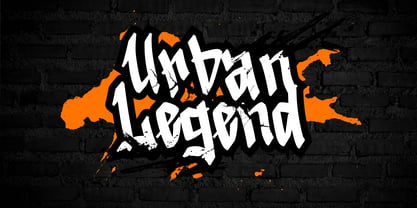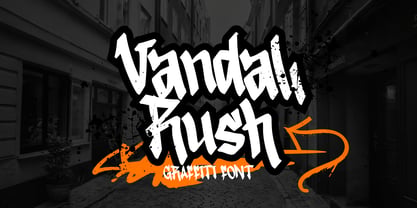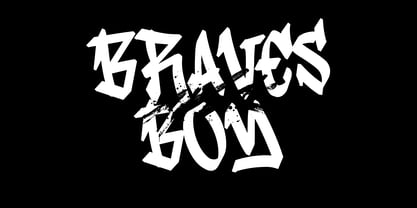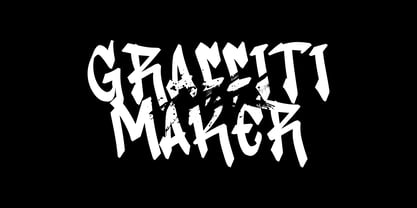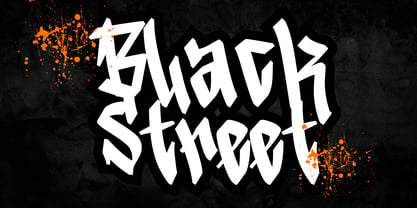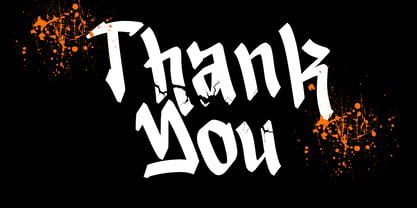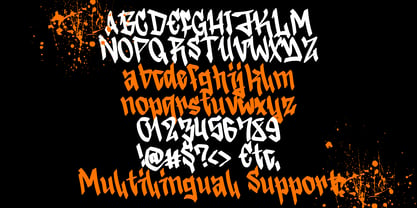
Vandal Rush
La familia tipográfica Vandal Rush fue diseñada por Ahmad Afandi y publicada por Letterafandi Studio. Vandal Rush contiene 2 estilos y opciones de paquete familiar. Más información sobre esta familia
Vandal Rush is a bold graffiti-style display font inspired by urban street culture and expressive hand-painted lettering. This font features strong, irregular strokes with dynamic angles and textured splatter details that convey energy, rebellion, and raw creativity. Its high contrast and compact letterforms make it highly impactful and visually dominant, even at large sizes. Designed to capture the essence of street art and underground typography, Vandal Rush is ideal for posters, branding, album covers, streetwear designs, event promotions, social media graphics, and headline-focused layouts. The font performs best when used as a display typeface, delivering a powerful statement with a modern urban edge.